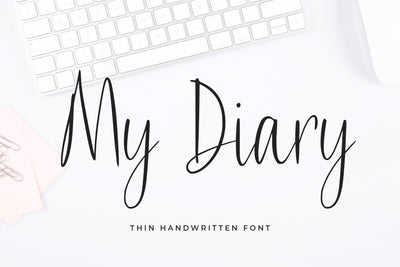
My Diary
introducing
MY DIARY
- thin handwritten font-
MY DIARY is beautiful script font.
It is great for branding, quotes, logos, t-shirt designs, tote bag designs, cards, banners, social media, and more.